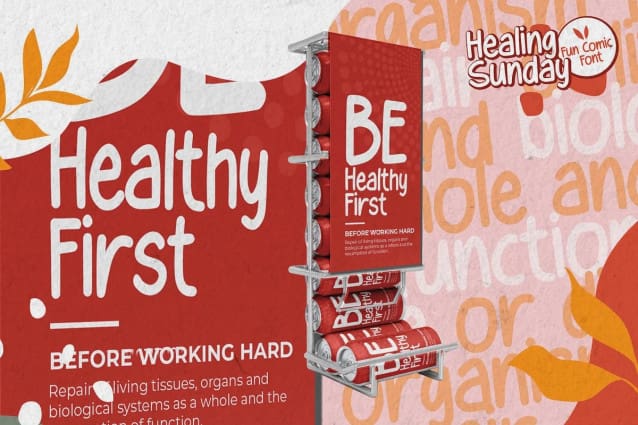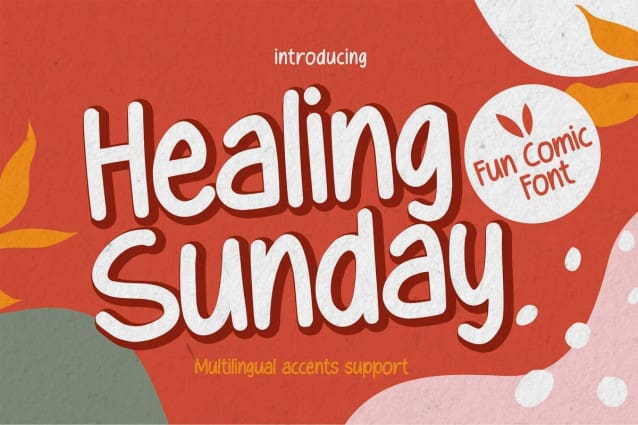
Healing Sunday Font
Healing Sunday Font – It’s Fun Comic Font is a Textured Natural Style and Authentic Style, this font is great for your creative projects such as watermark on photography, and perfect for logos & branding, invitation,advertisements,product designs, stationery, wedding designs,label ,product packaging, special events or anything that need handwritting taste.
Healing Sunday is a natural Hand Drawn feel. This handmade font will make your design has a beautiful natural touch for each details. It is perfect for any design project as Invitation,logo, book cover, craft or any design purposes,photos, photography overlays, signs, window art, scrapbooking, tags and so much more! It is perfect for any design project as Invitation,logo, book cover, craft or any design purposes.